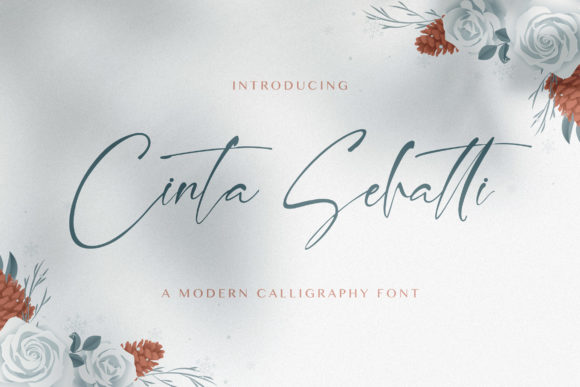
Indulge in the mesmerizing beauty of Cinta Sehatti, a script font that effortlessly combines classic elegance with modern flair. Each letter is a work of art, meticulously crafted to evoke the graceful strokes of a calligrapher's pen. Yet, it exudes a captivating freshness that breathes life into your designs.
Unleash your creativity and elevate your projects to new heights with Cinta Sehatti. Its versatility knows no bounds, making it an indispensable tool for designers seeking to make a lasting impression. Let your words dance across the page with an air of sophistication that commands attention and leaves a lasting impact.
With Cinta Sehatti, you'll discover a font that speaks to your heart and resonates with your soul. Its elegant curves and flowing lines create a visual symphony that will captivate your audience and leave them spellbound. Embrace the charm of Cinta Sehatti and let your imagination soar.
This masterpiece is the brainchild of StringLabs, a renowned foundry known for creating fonts that ignite inspiration and fuel creativity. Their dedication to excellence shines through in every detail of Cinta Sehatti, ensuring that your designs will stand out from the crowd and make an unforgettable statement.
Whether you're crafting a modern resume that demands attention or seeking to add a touch of sophistication to your latest project, Cinta Sehatti is your perfect companion. Its timeless beauty and undeniable allure will transform your words into works of art, leaving a lasting impression that will be cherished for years to come.
Experience the magic of Cinta Sehatti and witness the extraordinary transformation it brings to your creative endeavors. Embrace the elegance, indulge in the artistry, and let your imagination flourish with this exceptional font.